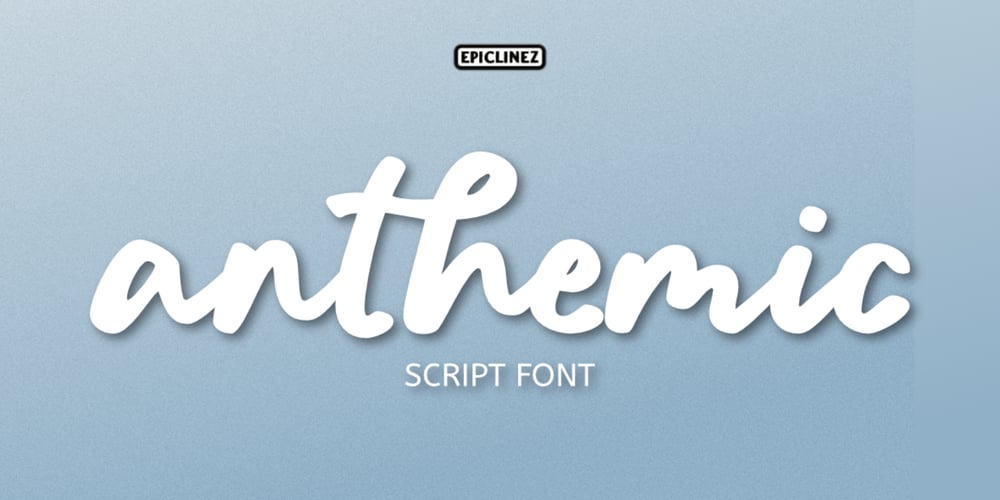
Anthemic
Anthemic font
Anthemic Font Family was designed by Aldy Sidik and published by Epiclinez. Anthemic contains 1 styles and family package options. Anthemic is an timeless bolded script font that is incredibly versatile and will look great on any design or craft.